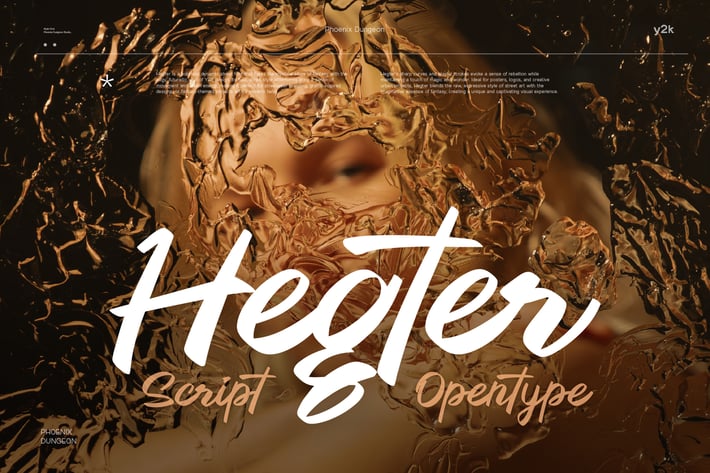
Hegter Font
Hegter is a bold and dynamic street font that fuses the mystical allure of fantasy with the edgy, futuristic vibe of Y2K design. Its fluid, script-style letterforms bring a sense of movement and urban energy, making it perfect for streetwear branding, graffiti-inspired designs, or fantasy-themed projects with a modern twist. Hegter’s sharp curves and playful strokes evoke a sense of rebellion while maintaining a touch of magic and wonder. Ideal for posters, logos, and creative urban projects, Hegter blends the raw, expressive style of street art with the imaginative essence of fantasy, creating a unique and captivating visual experience.